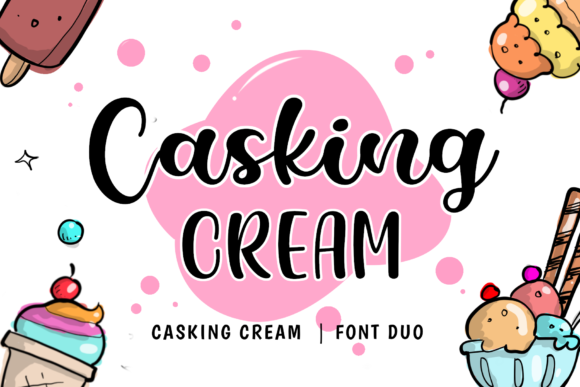
Casking Cream Font: Elevate Your Designs with this Stylish Duo
In the world of typography, fonts play a crucial role in making or breaking a design. A perfect font can elevate your design to new heights, while a poorly chosen one can make it look dull and unappealing. If you’re looking for a font that can add a touch of style and uniqueness to your designs, look no further than Casking Cream Font. In this article, we’ll explore what makes Casking Cream Font so special and how it can take your designs to the next level.
What is Casking Cream Font?
Casking Cream Font is a beautiful duo font that combines the elegance of a script font with the strength of a sans serif font. This unique combination makes it perfect for a wide range of design projects, from branding and headings to wedding designs, invitations, signatures, logos, labels, and more. The script font is cute and playful, while the sans serif font is strong and sturdy, making them a perfect match.
Key Features of Casking Cream Font
- Unique Duo Font: Casking Cream Font comes with two fonts in one – a script font and a sans serif font.
- Cute and Playful: The script font is perfect for adding a touch of whimsy and playfulness to your designs.
- Strong and Sturdy: The sans serif font is strong and sturdy, making it perfect for headings and titles.
- Highly Versatile: Casking Cream Font can be used for a wide range of design projects, from branding and advertising to wedding designs and invitations.
- Easily Readable: Both fonts are highly legible, making them perfect for use in body text as well as headings.
Why Choose Casking Cream Font?
So why should you choose Casking Cream Font for your next design project? Here are just a few reasons:
- Adds a Touch of Style: Casking Cream Font adds a touch of style and sophistication to any design.
- Unique and Eye-Catching: The combination of script and sans serif fonts makes Casking Cream Font truly unique and eye-catching.
- Perfect for Branding: Casking Cream Font is perfect for branding projects, as it can help to create a consistent and recognizable visual identity.
- Great for Wedding Designs: The script font is perfect for wedding designs, such as invitations, programs, and place cards.
How to Use Casking Cream Font
Using Casking Cream Font is easy. Here are a few tips to get you started:
- Pair the Fonts: Pair the script font with the sans serif font to create a unique and eye-catching design.
- Use for Headings: Use the sans serif font for headings and titles, and the script font for body text or accents.
- Add a Personal Touch: Use Casking Cream Font to add a personal touch to your designs, such as a custom logo or signature.
- Experiment with Colors: Experiment with different colors and textures to really make your design pop.
In conclusion, Casking Cream Font is a versatile and stylish duo font that can elevate a wide range of design projects to the highest level. With its unique combination of script and sans serif fonts, it’s perfect for adding a touch of style and sophistication to any design. Whether you’re working on a branding project, wedding design, or simply want to add a personal touch to your designs, Casking Cream Font is a great choice.
Final Thoughts